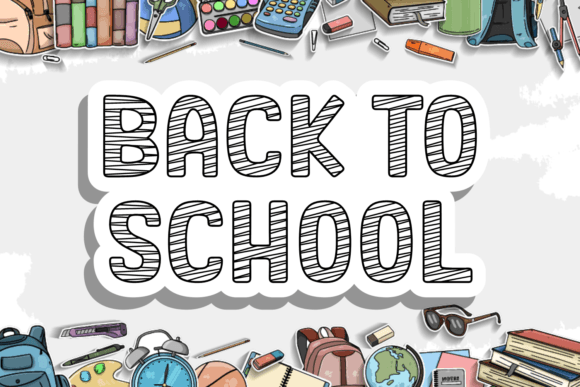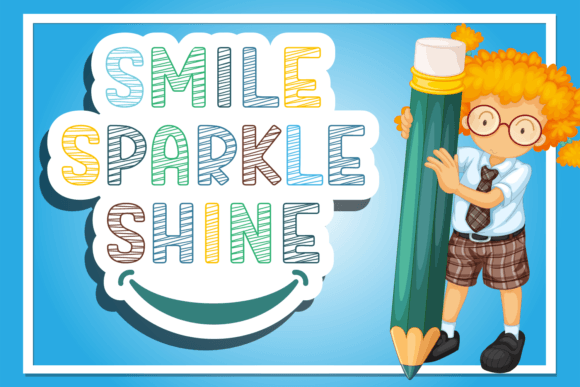
Introducing Clip Arts Font: Unleash Your Creativity with this Charming Display Font
Are you a designer, crafter, or DIY enthusiast looking for a font that can add a personal touch to your creative projects? Look no further than Clip Arts Font, a lovely decorative display font that embodies the charming aesthetic of hand-drawn sketches. With its playful and artistic vibe, Clip Arts is perfect for imaginative design projects that require a unique and personalized touch.
The Charm of Hand-Drawn Sketches
Clip Arts Font is inspired by the beauty of hand-drawn sketches, which are often characterized by their imperfections and uniqueness. The font’s sketch style gives it a distinctive and artistic look that is sure to capture the attention of your audience. Whether you’re creating headlines, titles, posters, invitations, or other visual materials, Clip Arts adds a touch of personality and whimsy that sets your designs apart.
Perfect for Creative and Imaginative Design Projects
Clip Arts Font is designed to bring a sense of joy and creativity to any typographic composition. Its playful and artistic vibe makes it perfect for a wide range of design projects, including:
- DIY projects: Add a personal touch to your DIY projects, such as handmade cards, gift tags, and other crafty creations.
- Scrapbooking: Use Clip Arts to create unique and eye-catching titles, headings, and journaling in your scrapbook pages.
- Digital media: Add flair to your digital media, such as social media graphics, blog posts, and website headers, with this charming font.
- Posters and invitations: Create eye-catching posters and invitations for parties, events, and other special occasions.
Key Features of Clip Arts Font
Here are some key features that make Clip Arts Font a great choice for your design projects:
- Unique and personalized look: The font’s sketch style gives it a distinctive and artistic look that is sure to capture the attention of your audience.
- Playful and artistic vibe: Clip Arts exudes a playful and artistic vibe that is perfect for creative and imaginative design projects.
- Versatile: The font is suitable for a wide range of design projects, from DIY crafts to digital media.
Tips for Using Clip Arts Font
Here are some tips for using Clip Arts Font in your design projects:
- Experiment with different sizes and colors: Clip Arts Font looks great in a variety of sizes and colors, so don’t be afraid to experiment and find the perfect combination for your design.
- Pair with other fonts: Clip Arts Font pairs well with other fonts, so try combining it with a sans-serif font for a bold and eye-catching look.
- Use for headlines and titles: Clip Arts Font is perfect for headlines and titles, where its unique and artistic look can really shine.
- Add a personal touch: Use Clip Arts Font to add a personal touch to your design projects, such as handmade cards and gift tags.
In conclusion, Clip Arts Font is a charming decorative display font that is perfect for designers, crafters, and DIY enthusiasts looking to add a personal touch to their creative projects. With its playful and artistic vibe, unique and personalized look, and versatility, Clip Arts is a great choice for a wide range of design projects. So why not give it a try and see how it can bring a sense of joy and creativity to your typographic compositions?